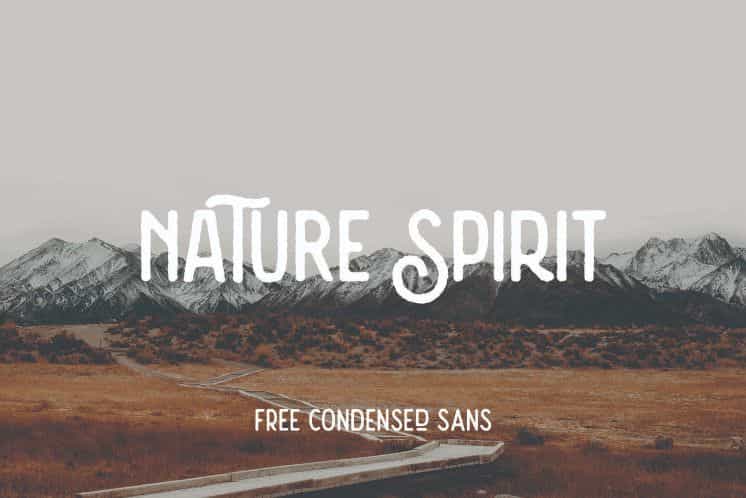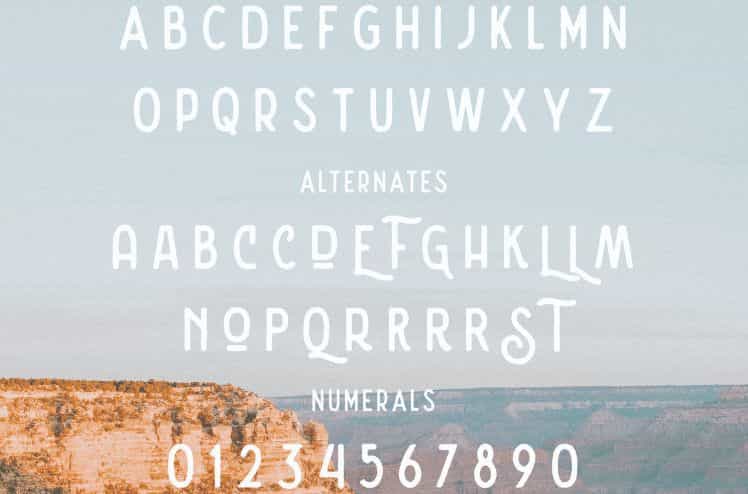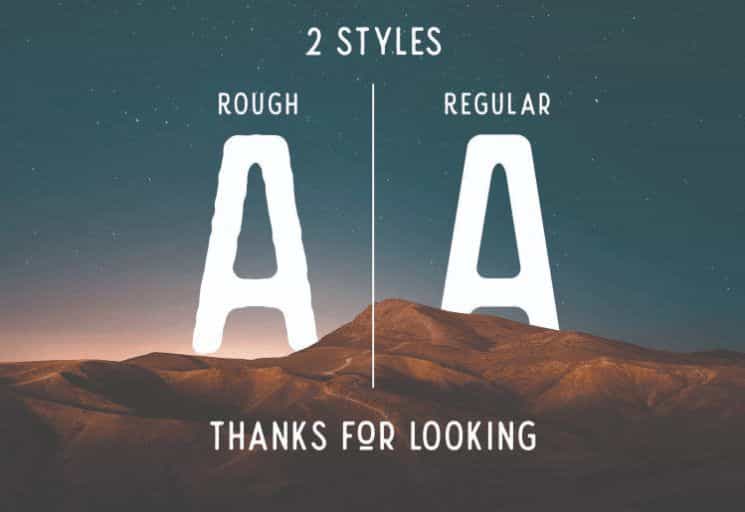
Introducing Nature Spirit Font. Nature Spirit Vintage Font is a one of its kind retro style font it has two versions – Clean and Rough. This font is full of alternates which allows you to create your own type. This is great for vintage branding, logo & label design, apparel and much more!